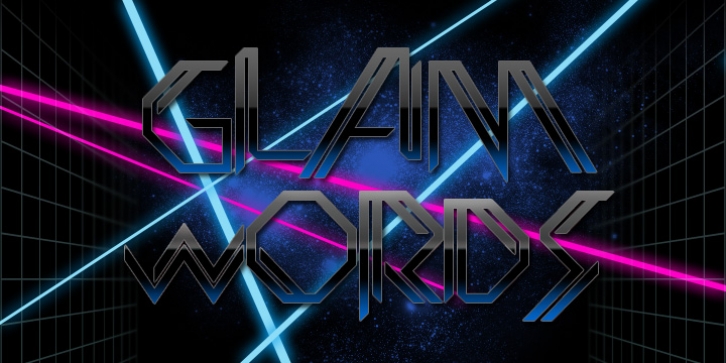
Publisher: Mostardesign
If you love outrageous clothes, makeup, hairstyles, platform-soled boots, flamboyant costumes, so Glamwords is what you need for your design creations. Glamwords typeface is new font with a nostalgic reference to the Glitter style developed in 1970s.
This font has been especially designed for Mostardesign Studio by Olivier Gourvat. Created in 2009, this font family can be used for very short texts however it is particularly effective for headlines in larger point sizes so that its details are emphasized. Glamwords is a very geometric face best used in experimental designs (i.e., logos, web sites, flyers, and expressive headlines).